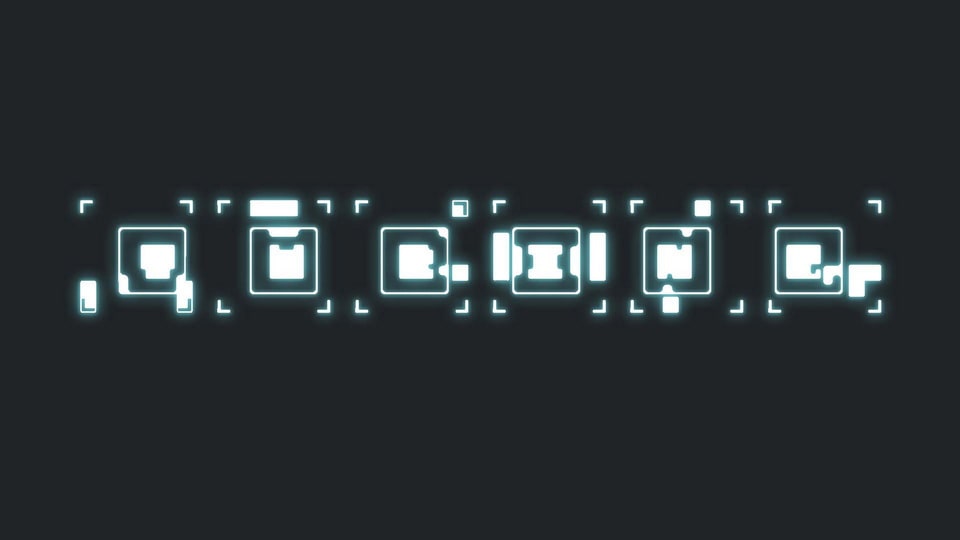
Download Turing font, a creative sci-fi monospaced font inspired by a Turing machine. Designed with three distinct variables, it allows for endless creative possibilities.
Designer: Chris van Ballegoij